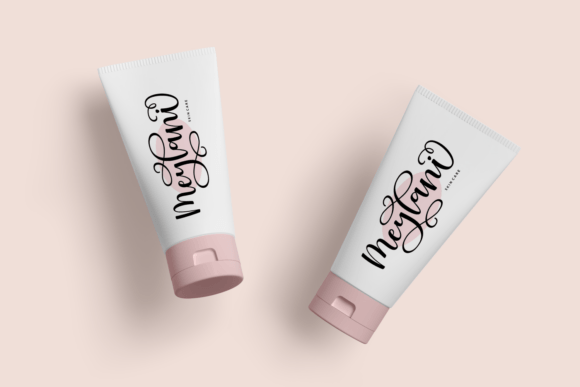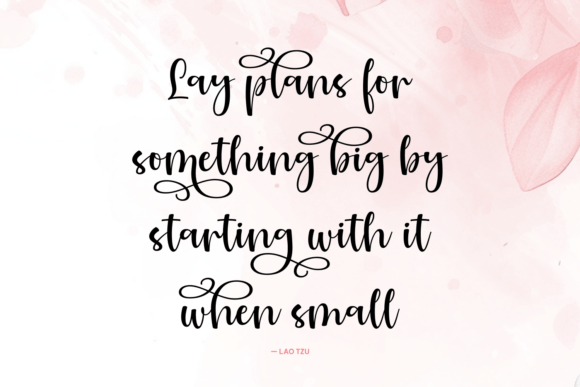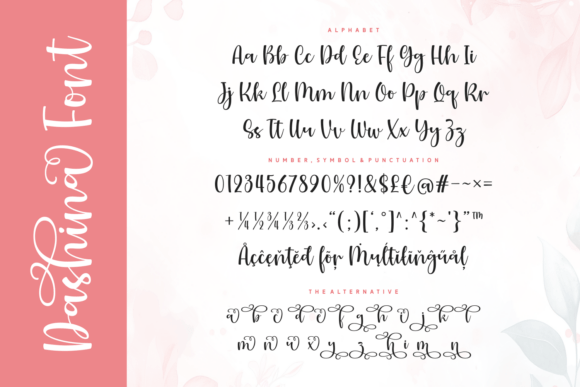
The Elegance of Dashina Font: A Designer’s Delight
I still remember the time I was working on a wedding invitation project, and my client asked me to create a luxurious and feminine look. I scoured the internet for the perfect font, but nothing seemed to fit the bill. That was until I stumbled upon Dashina Font. With its bold curves and flowing swashes, it was love at first sight! In this article, I’ll share my experience with Dashina Font, its features, and how to make the most of it in your designs.
An Honest Review of Dashina Font
What I Love About Dashina Font
- ✨ Elegant and sophisticated design that radiates luxury and femininity
- ✅ Perfect for wedding invitations, branding, social media posts, and greeting cards
- 💫 Delicate charm and versatile style that makes every project shine
- 🎨 Beautiful bold curves and flowing swashes that add a touch of glamour
While Dashina Font is a stunning script font, there are a few things to keep in mind:
- ⚠️ May not be suitable for body text or long paragraphs due to its decorative nature
- 🤔 Limited legibility at small font sizes, so use with caution
The Story Behind Dashina Font
Dashina Font was designed by a team of typographers who wanted to create a luxurious and feminine script font that would inspire designers to create beautiful works of art. The font’s name, Dashina, is derived from the word “dash,” which represents the flowing swashes and curves that make this font so unique.
Q: What is Dashina Font best used for?
A: Dashina Font is perfect for wedding invitations, branding, social media posts, greeting cards, and any other project that requires a luxurious and feminine touch.
Q: Is Dashina Font easy to read?
A: Dashina Font is a decorative script font, which means it may not be suitable for body text or long paragraphs. However, it’s perfect for headlines, titles, and short text passages.